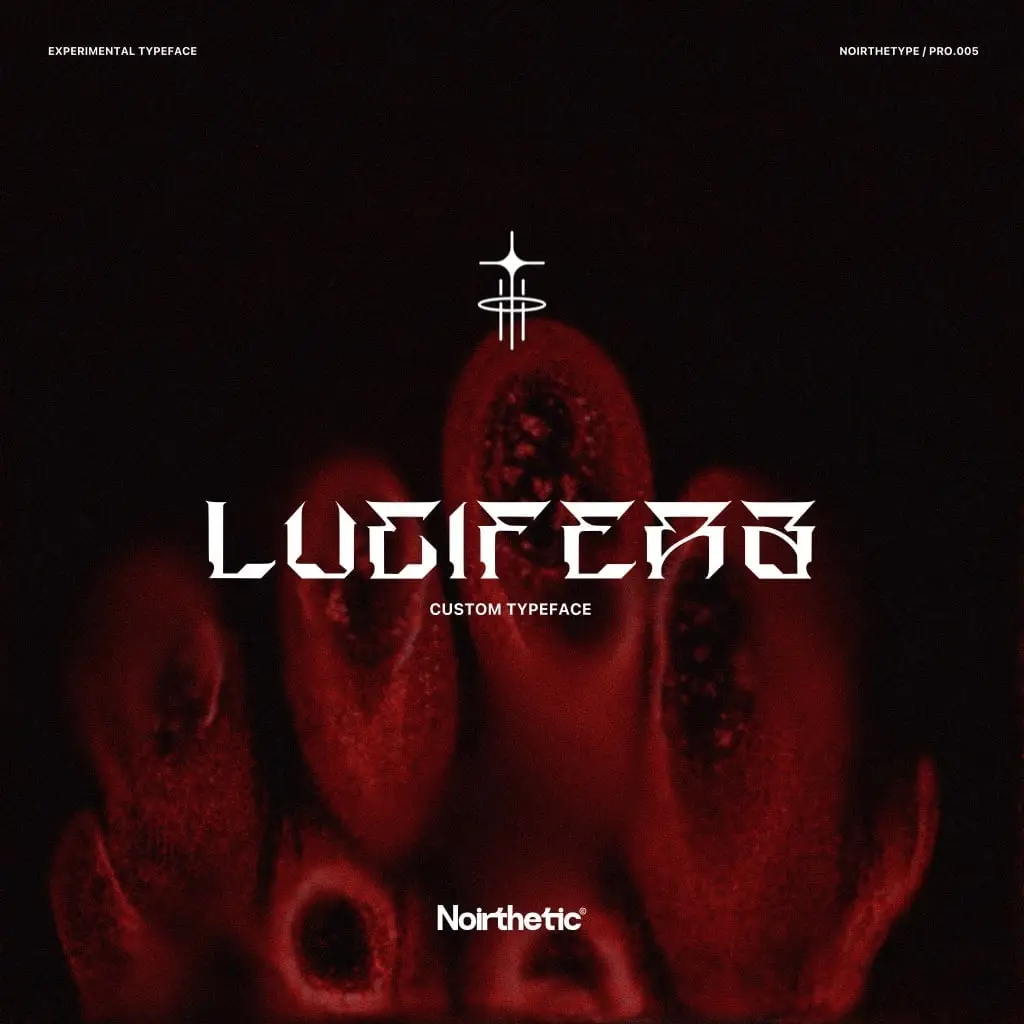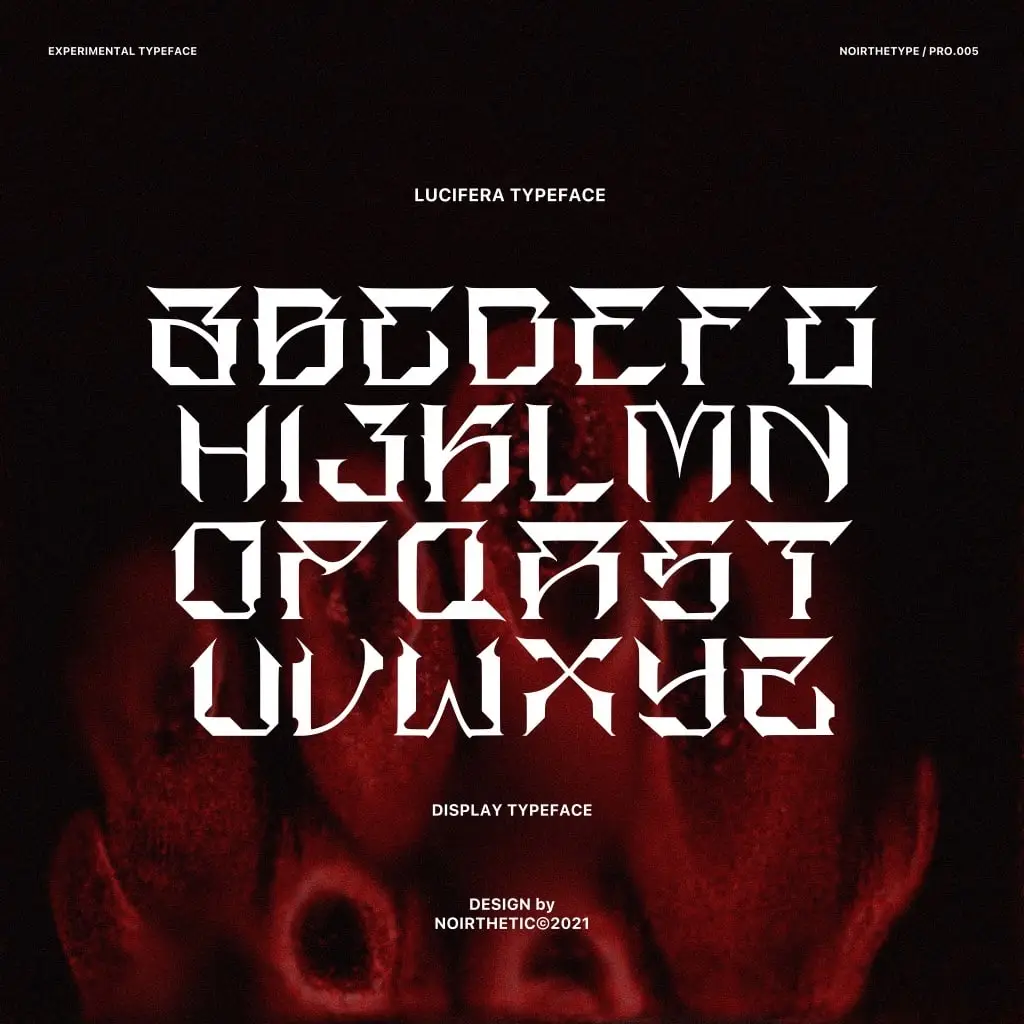
Lucifera Typeface (Trial Version)
The Lucifera Typeface is a striking and versatile font designed for those looking to make a bold statement in their projects. This trial version allows you to explore its unique character set and elegant styling before committing to the full version.
• Stylish serif design with a modern twist
• Multiple weights for flexibility in design
• Uppercase and lowercase letters, numbers, and punctuation
• Ideal for branding, logos, and print materials
• Perfect for web design and user interfaces
• Utilize in creative projects to convey elegance and sophistication